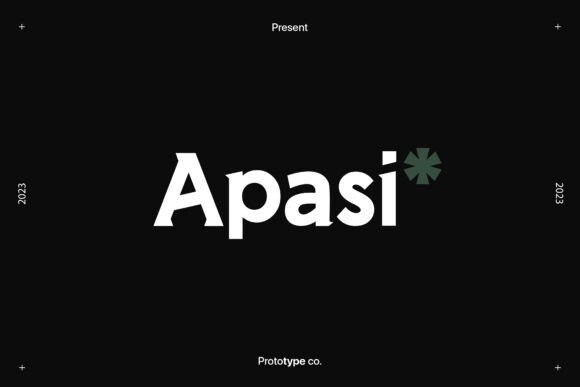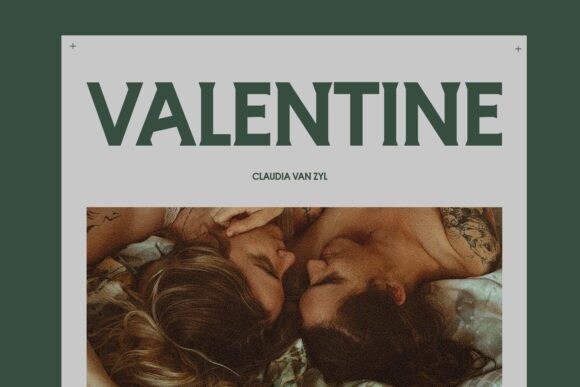
Apasi Font
Apasi is a modern and classy display typeface. It works best for headings, logos, branding, magazines, product packaging, and invitations. It comes with clean lines and smooth curves giving any project an extra touch of class.